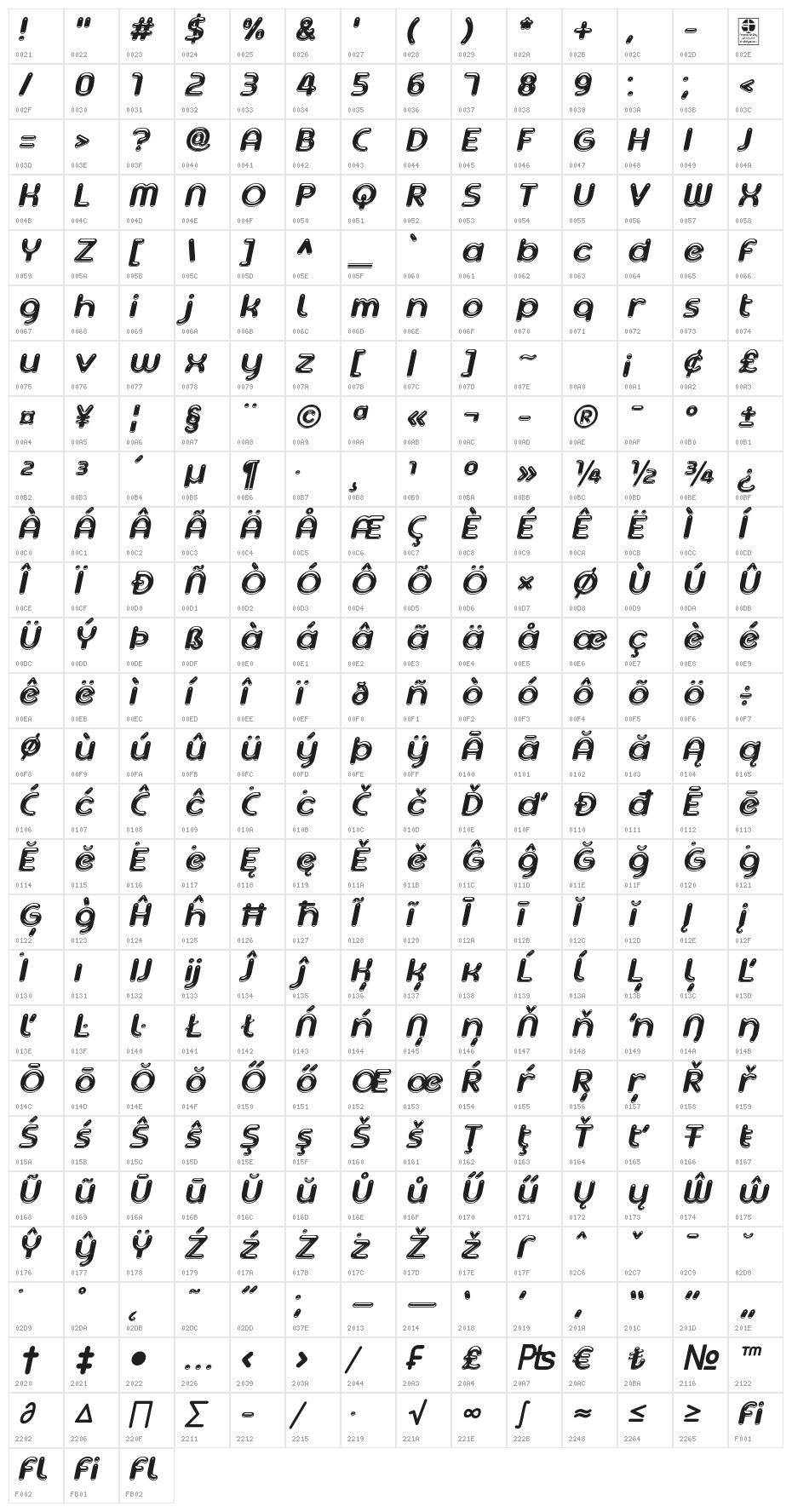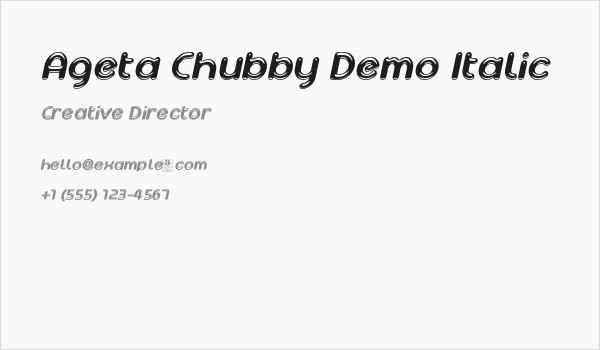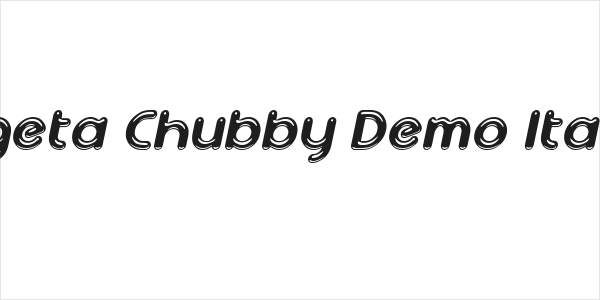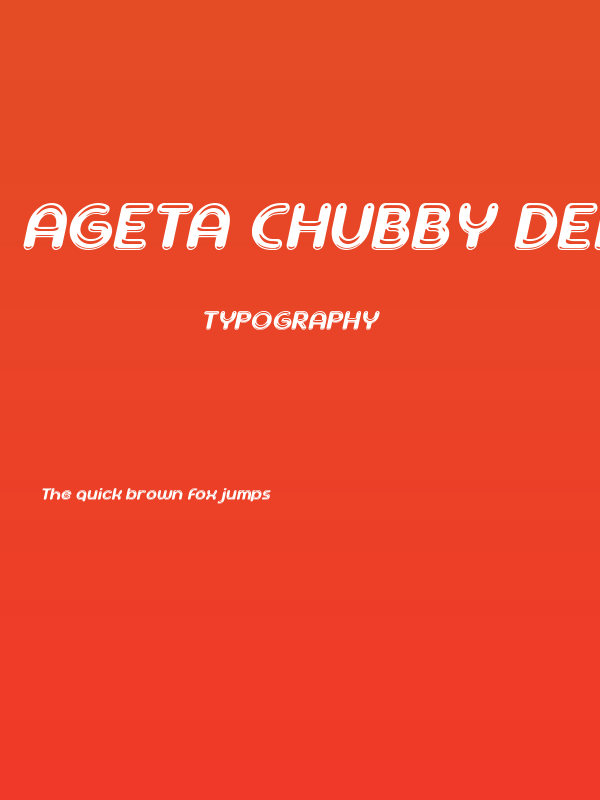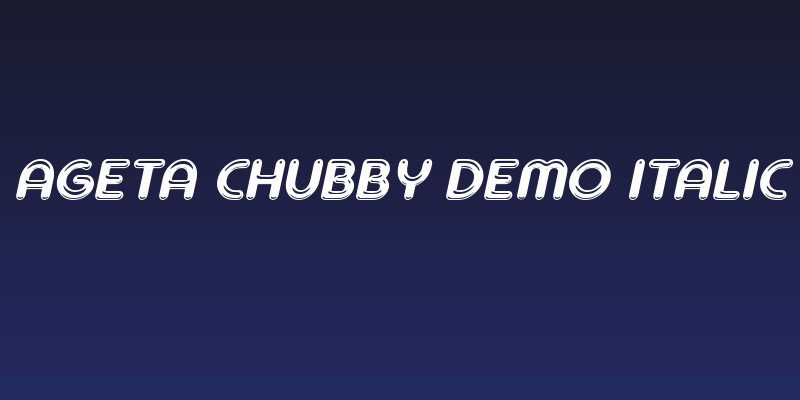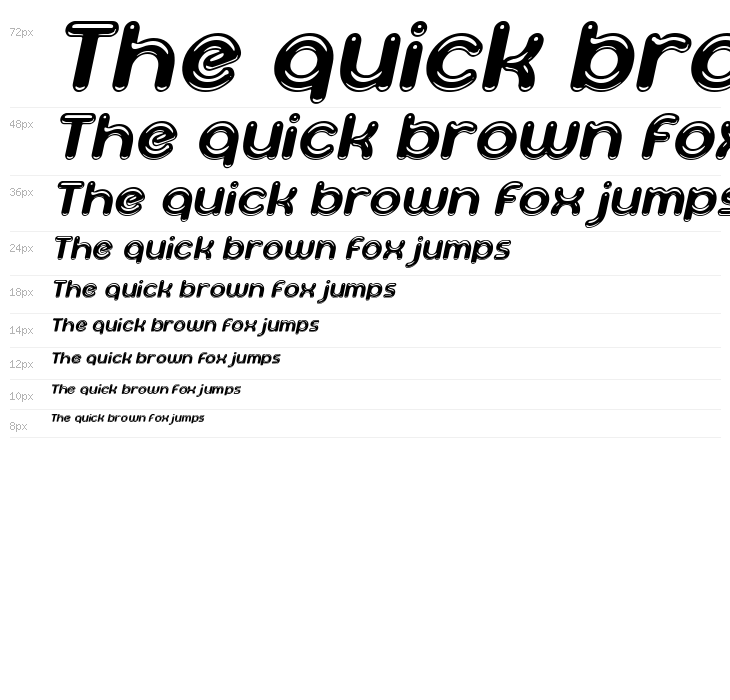
Ageta Chubby Demo Italic Font
Ageta Chubby Demo Italic Description
This playful and bold font features a chubby, rounded design with a distinct italic slant, giving it a dynamic and lively appearance. The characters are thick and have a bubble-like quality, with smooth curves and a consistent stroke width that adds to its friendly and approachable style. The font's unique design makes it stand out, with each letter maintaining a uniform thickness that contributes to its cohesive look. The spacing between characters is balanced, ensuring readability while maintaining its whimsical charm. This font is perfect for projects that require a fun and engaging typeface.
| Overall Style | Playful, Modern |
| Proposed Projects | Ideal for children's books, playful branding, posters, and social media graphics. |